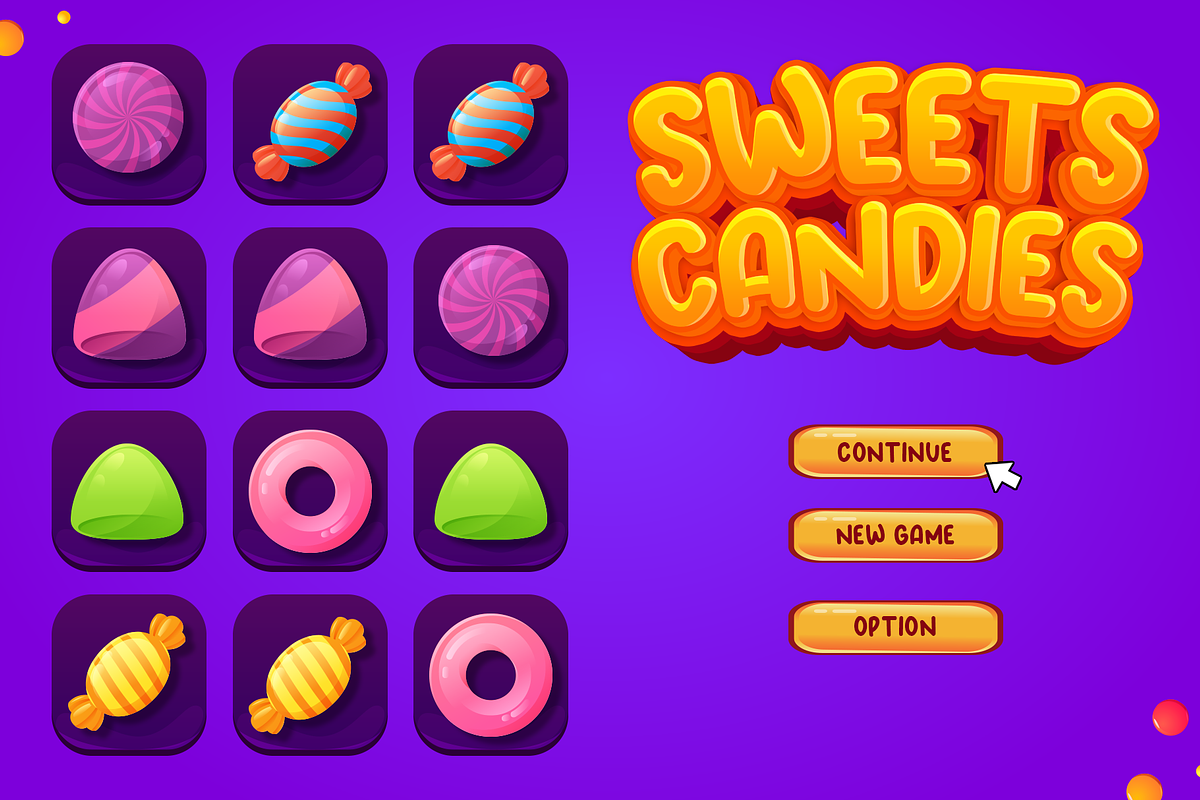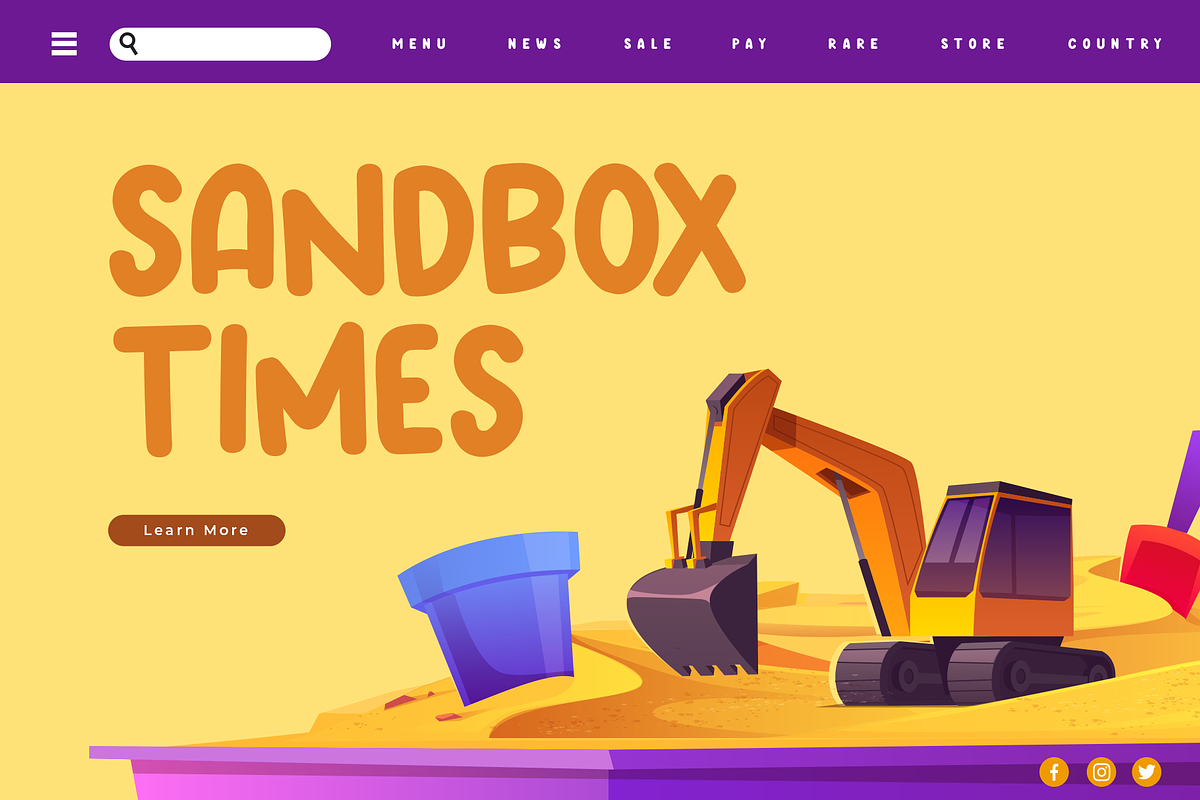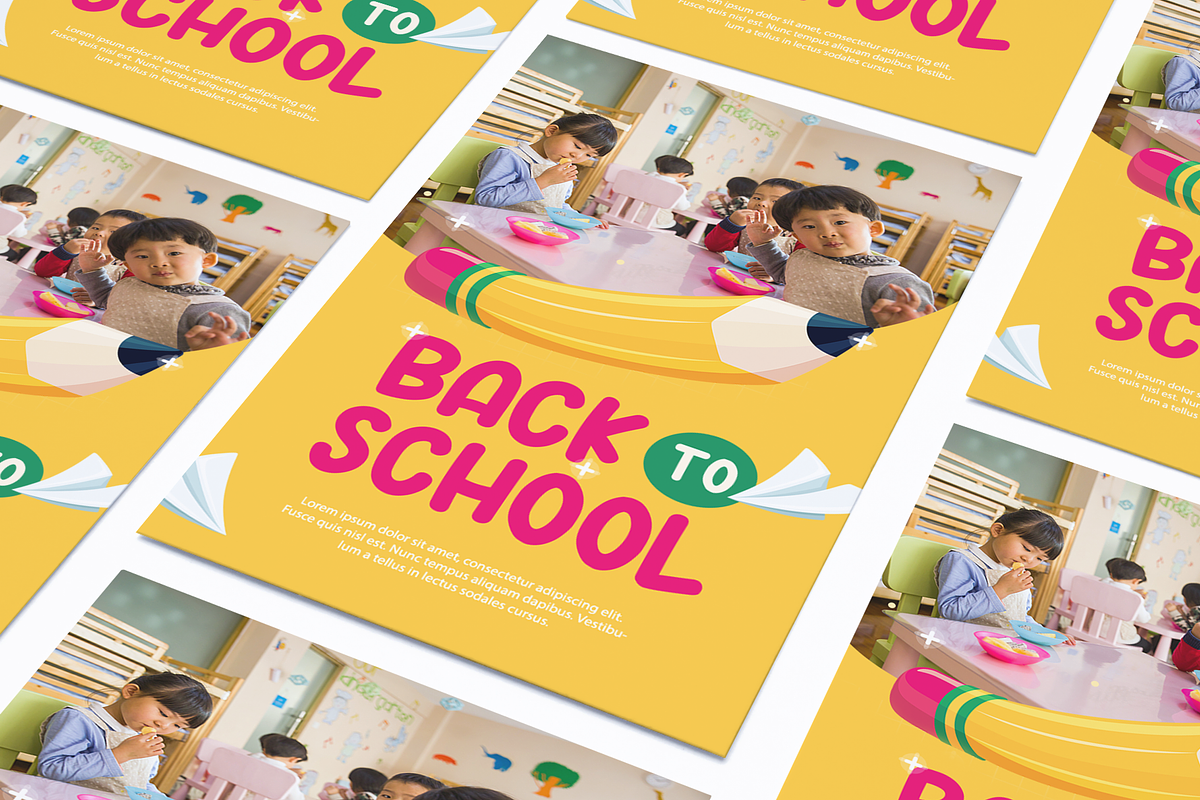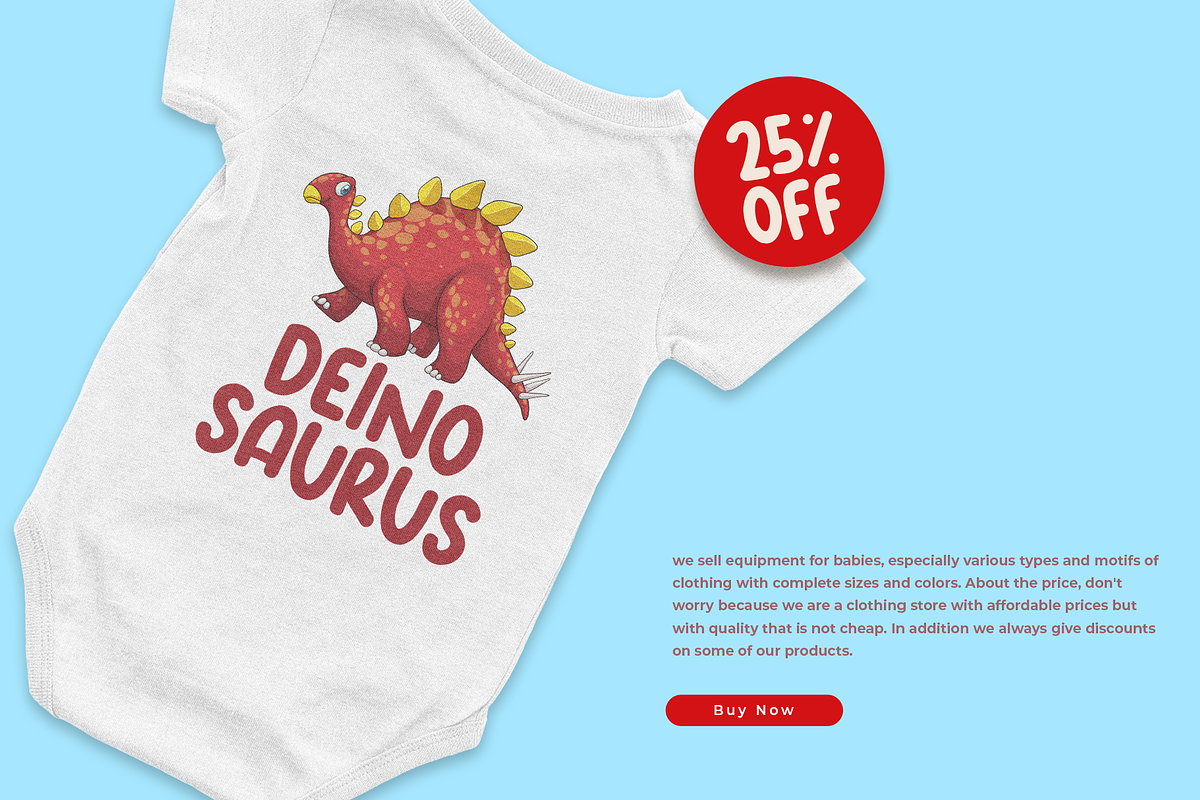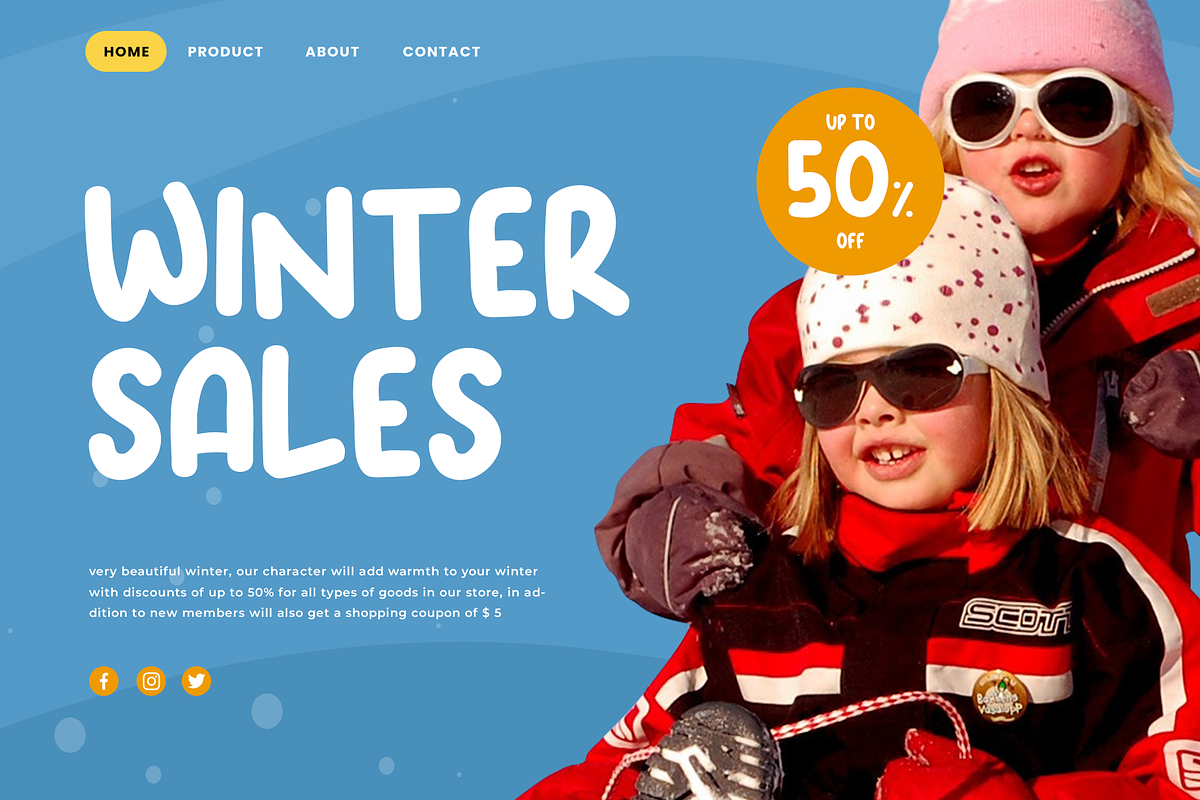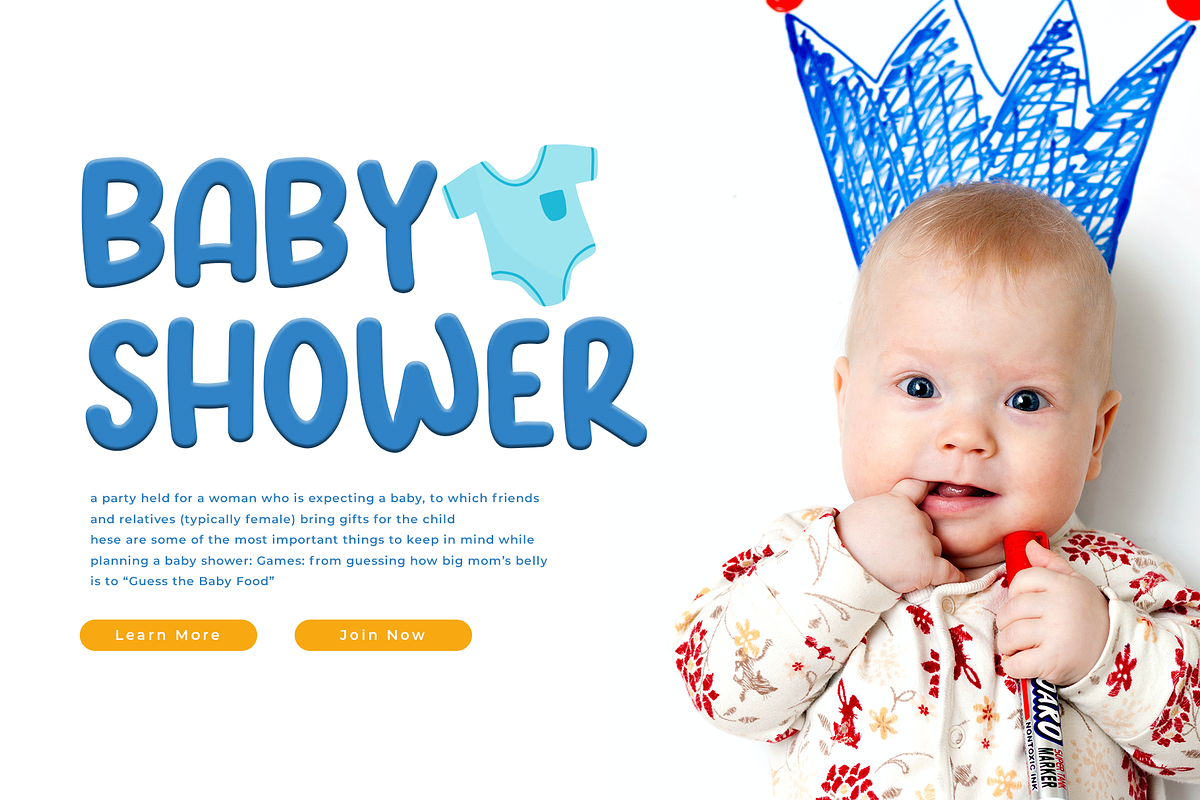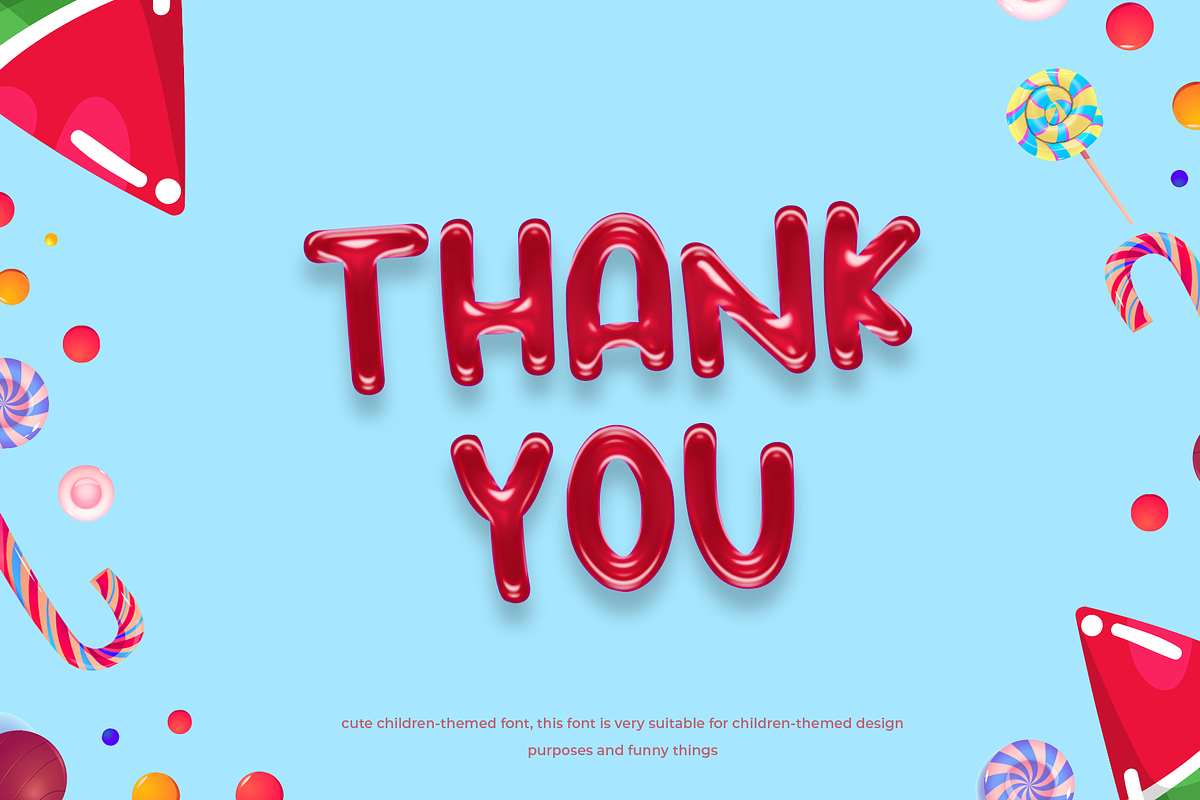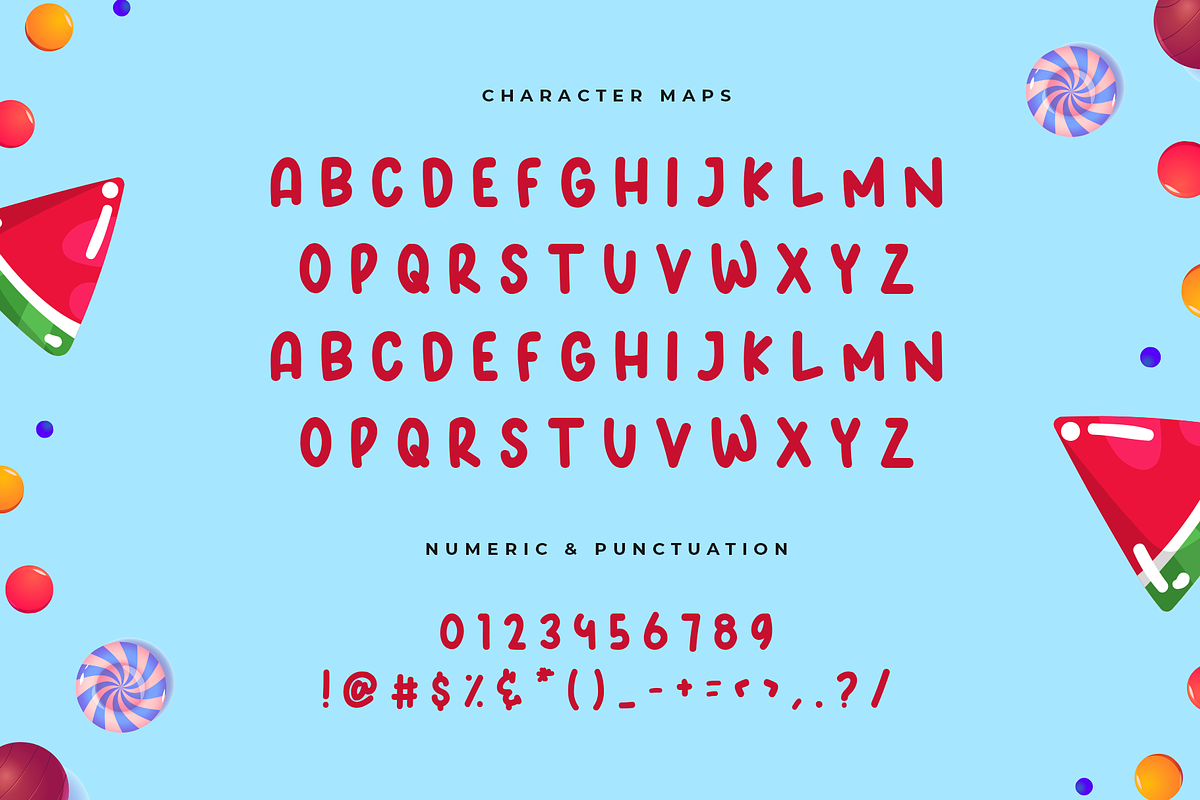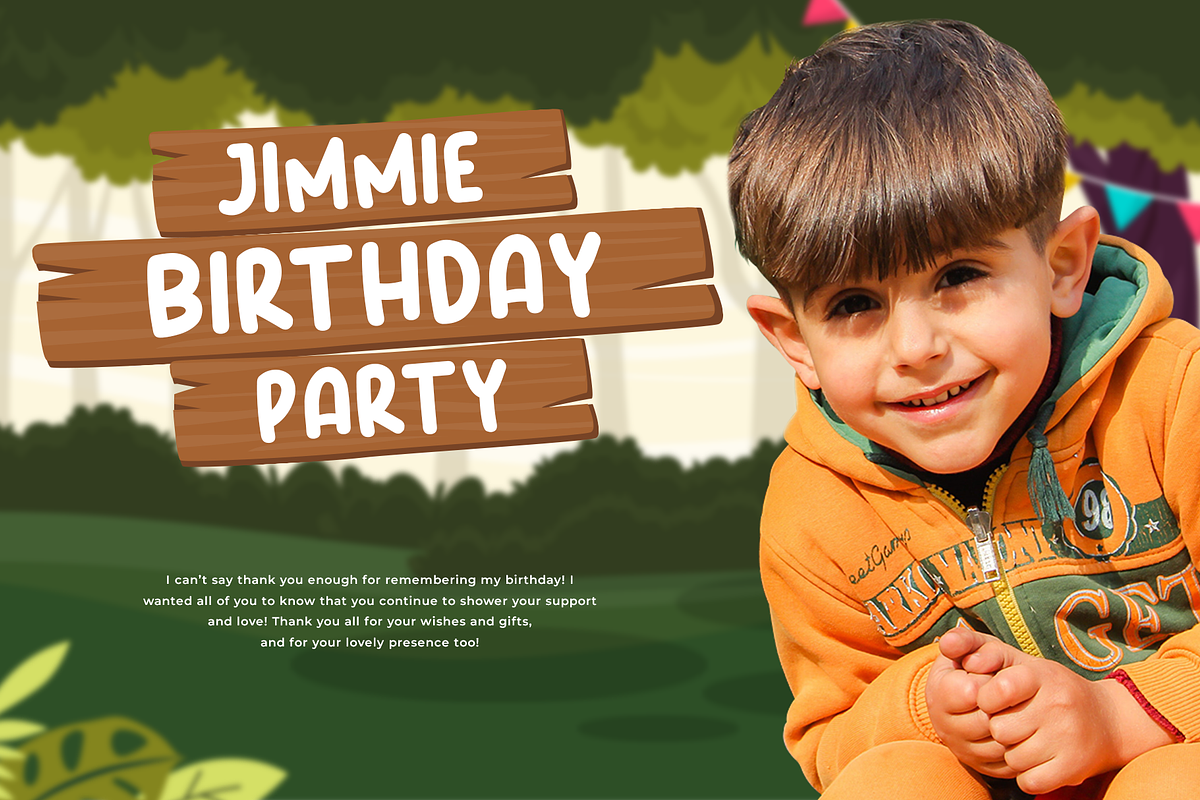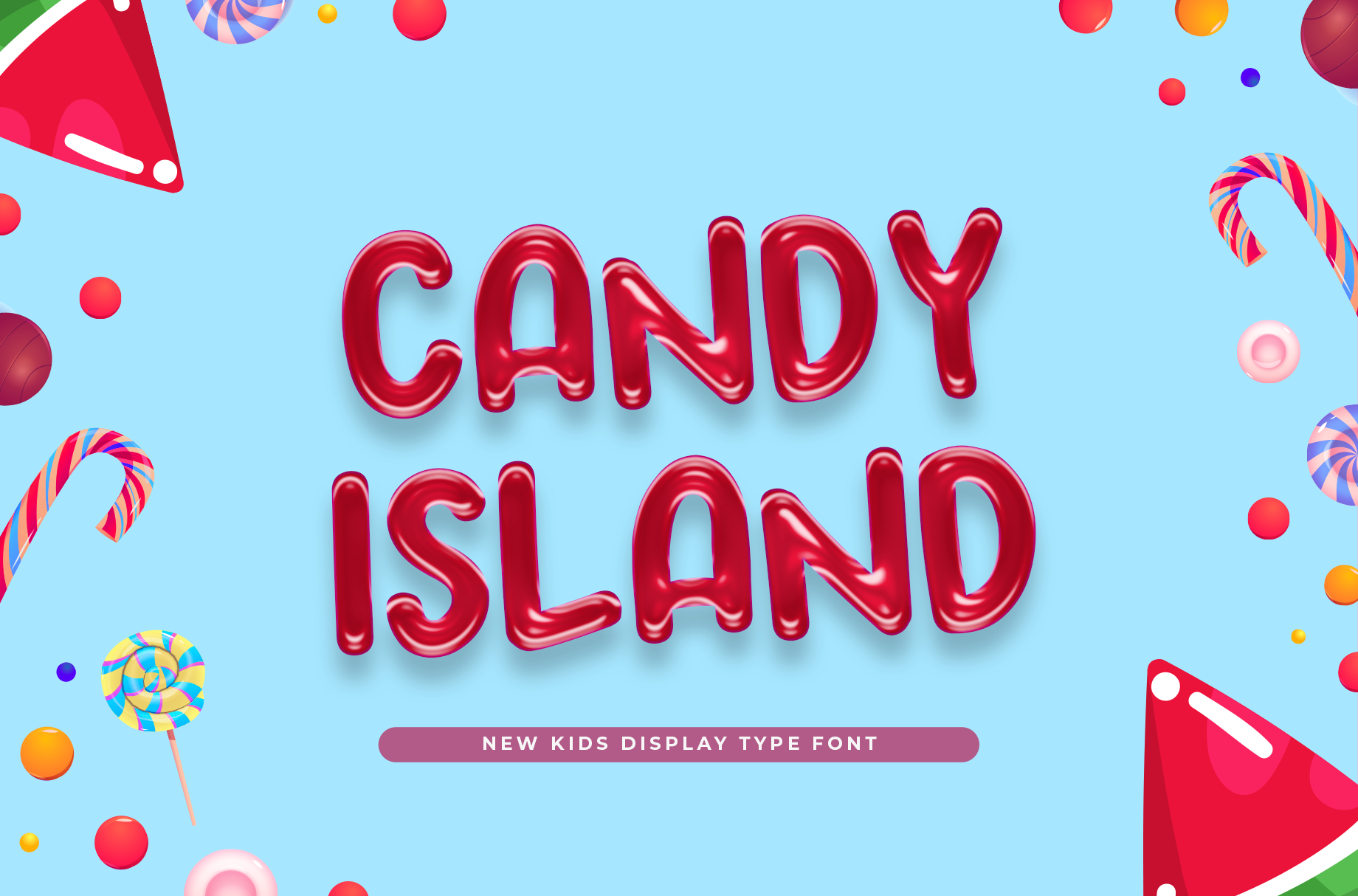
Candy Island New Kids Display Font
Candy Island New Kids Display Font is a playful, colorful typeface designed for children’s projects. Perfect for party invitations, toy packaging, and kid-friendly branding, its glossy, candy-like letterforms create a fun and vibrant atmosphere. Ideal for posters, games, and digital media, this font blends sweetness with versatility. Crafted for designers seeking a cheerful aesthetic, Candy Island enhances storytelling with its whimsical design. Suitable for print and online applications, it brings joy and creativity to every kid-oriented project